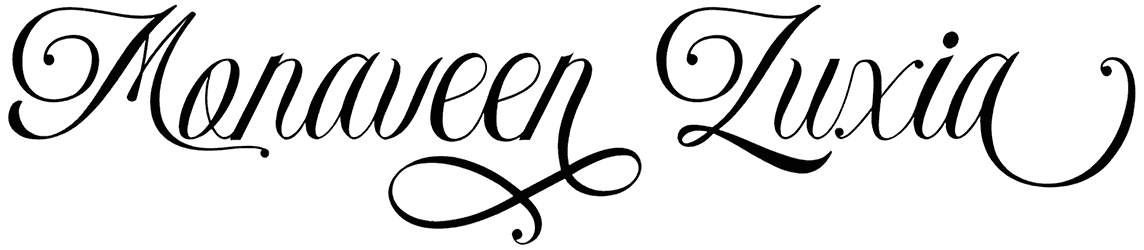
Monaveen Luxia Font
If you are after a font that turns every viewer into your lover at one glance, do not waste a single moment downloading Monaveen Luxia. Because the letters flow in a smooth and continuous way, this calligraphy font is very similar to the handwriting of calligraphy masters.
You can create a casual and homey feeling using this font in advertisements, invitation cards, and headings. Although numbers aren’t among the characters, we still encounter versatile handwritten letters made for formal and informal uses.